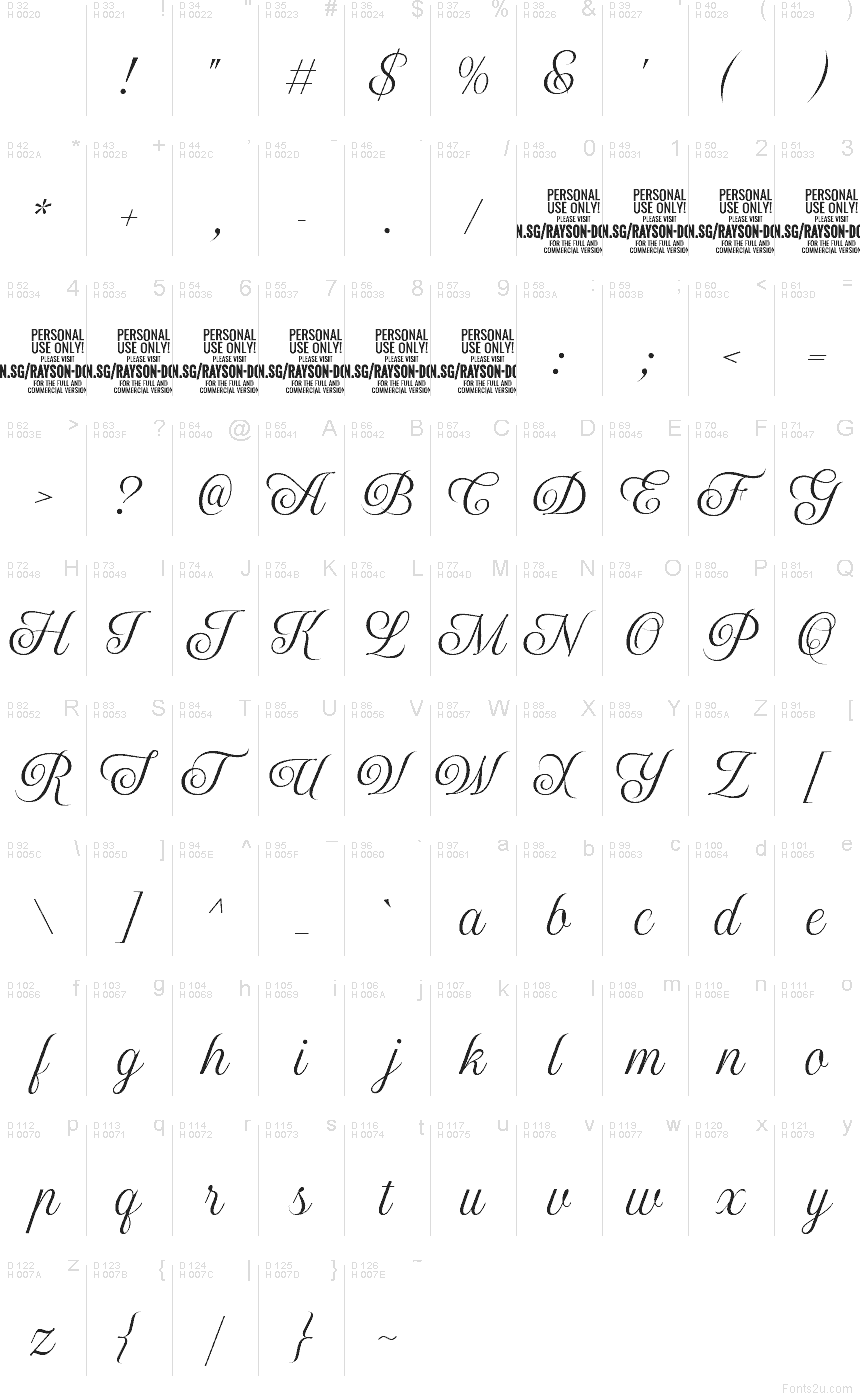
Rayson Downley Script PERSONAL Regular
Rayson Downley Script font by Mans Greback is a free calligraphy font that pours onto the page like fresh ink from a fine nib. Its flowing loops, sweeping tails, and evenly balanced rhythm give every word a sense of ceremony, without feeling stiff or old-fashioned. The strokes are delicate yet confident, creating a formal script that feels right at home on anything meant to be cherished and kept.
Using Rayson Downley Script, your wedding invitations, save-the-date cards, event programs, certificates, luxury packaging, boutique logos, and romantic quote prints all gain a graceful, handwritten charm. This free font works beautifully as a statement heading paired with a clean sans serif for body text to keep layouts readable and refined. Keep it large and airy, and let the swirling forms breathe on generous margins for maximum elegance.